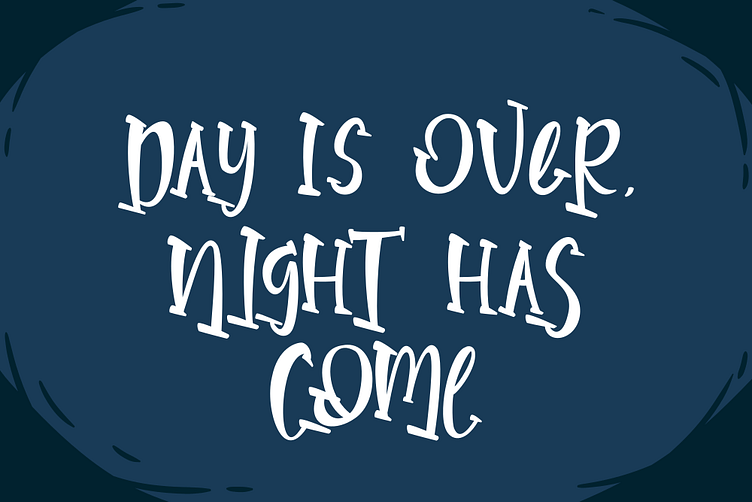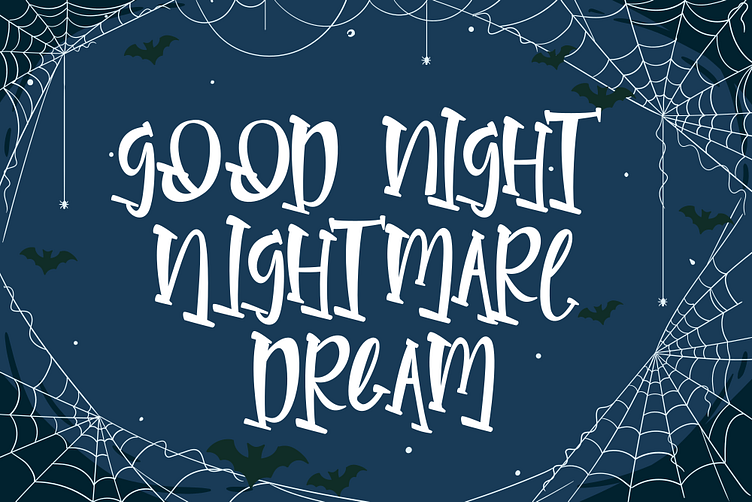
Parallel Night - Display Font
Parallel Night is a cute & friendly display font. Get inspired by its incredibly youthful feel. Add this chunky lettered font to your designs and notice how it makes them come alive! Download